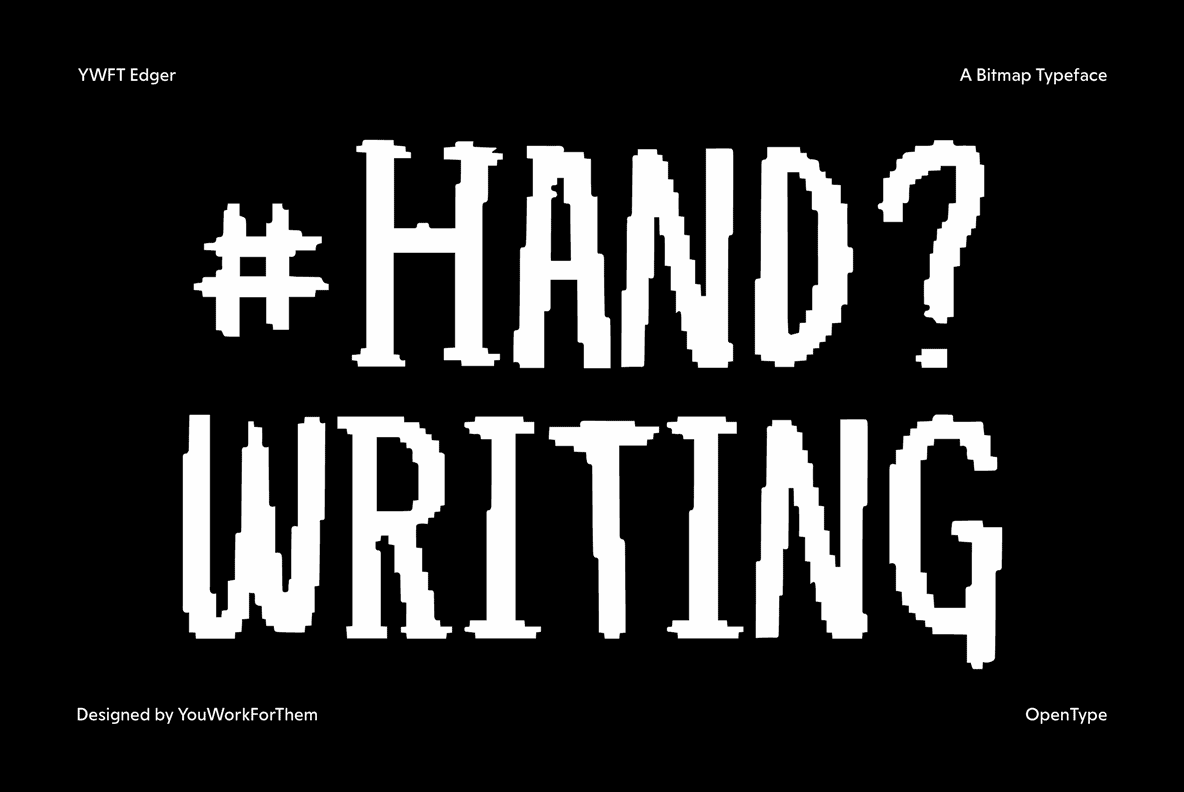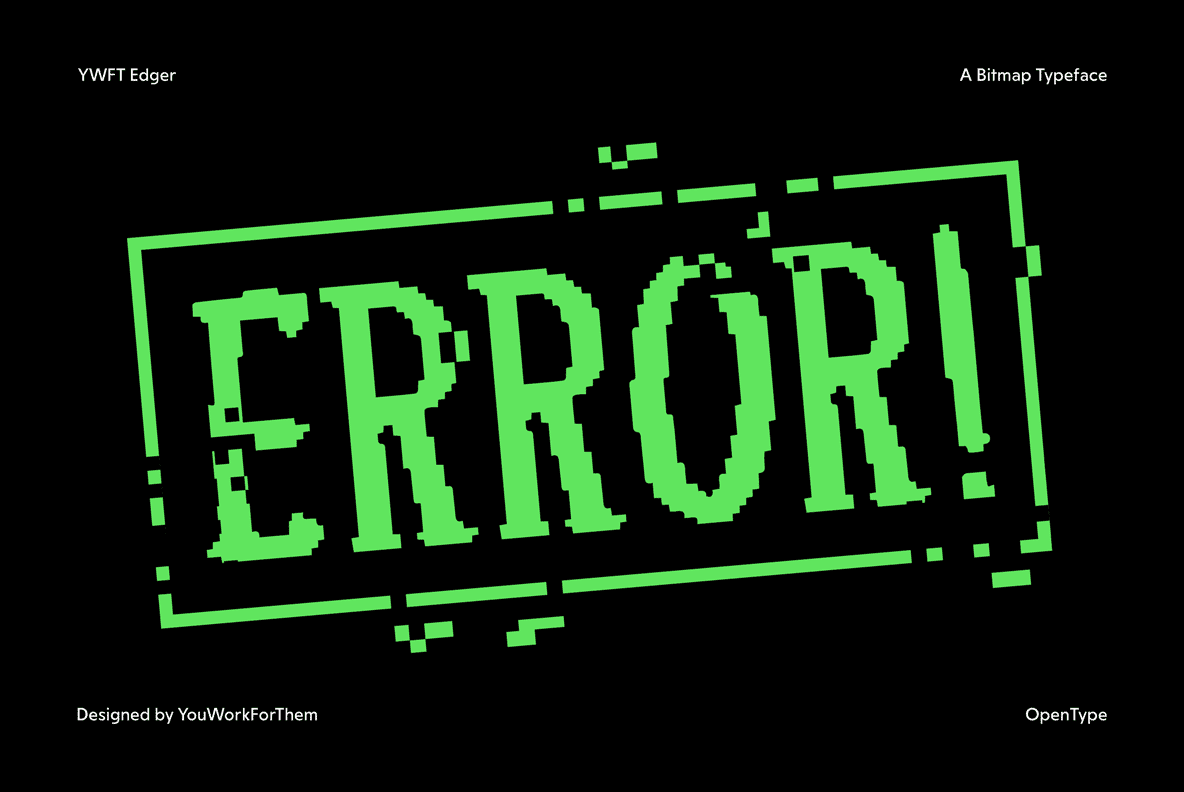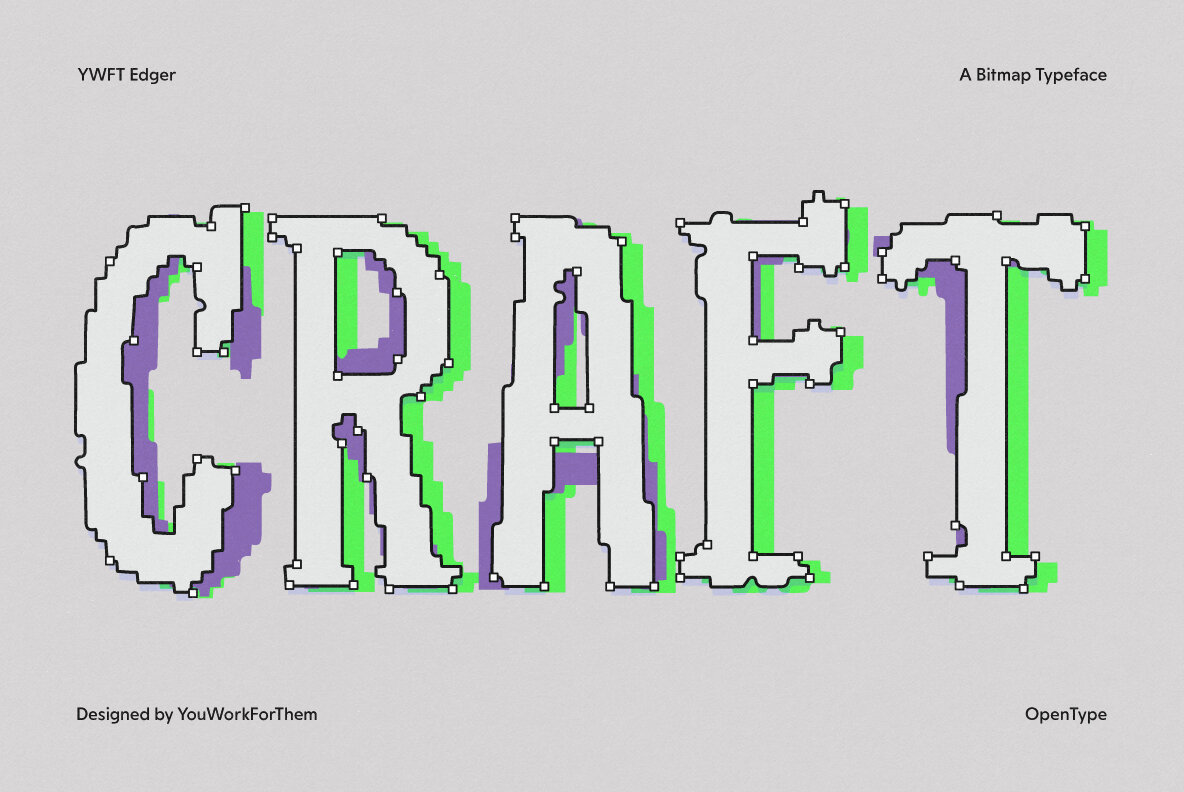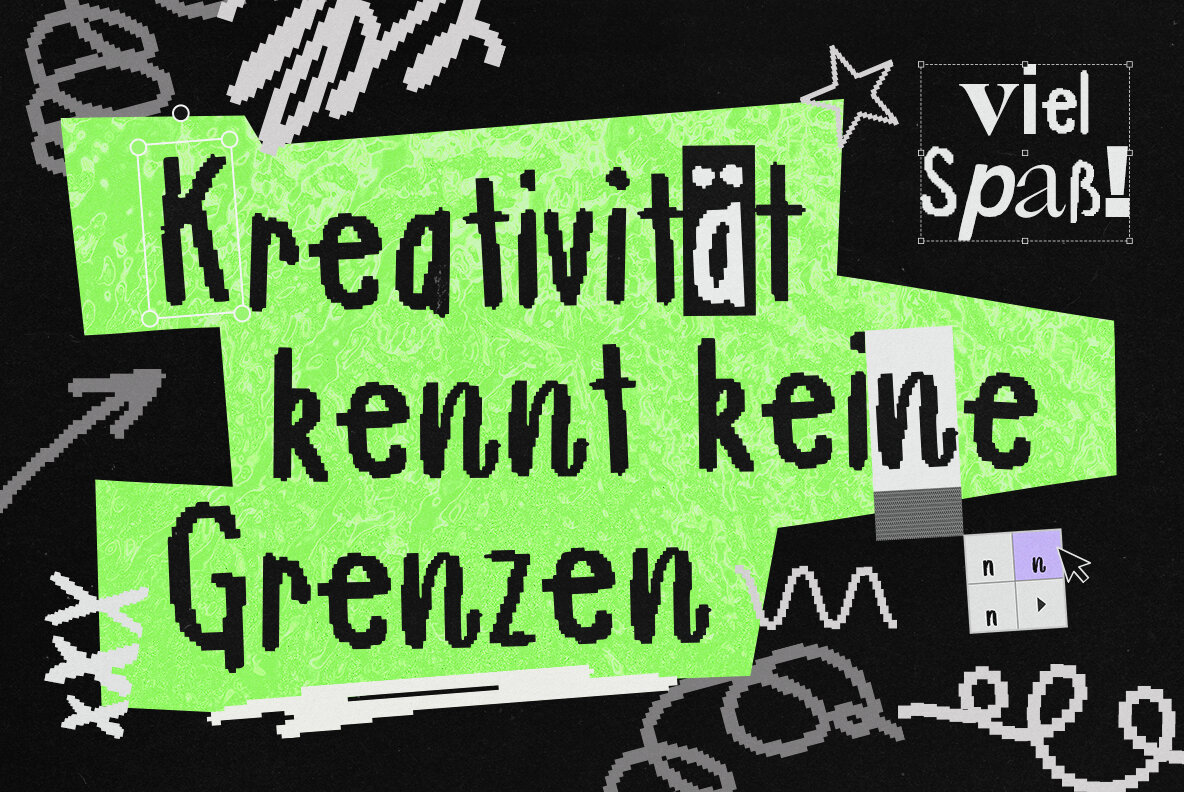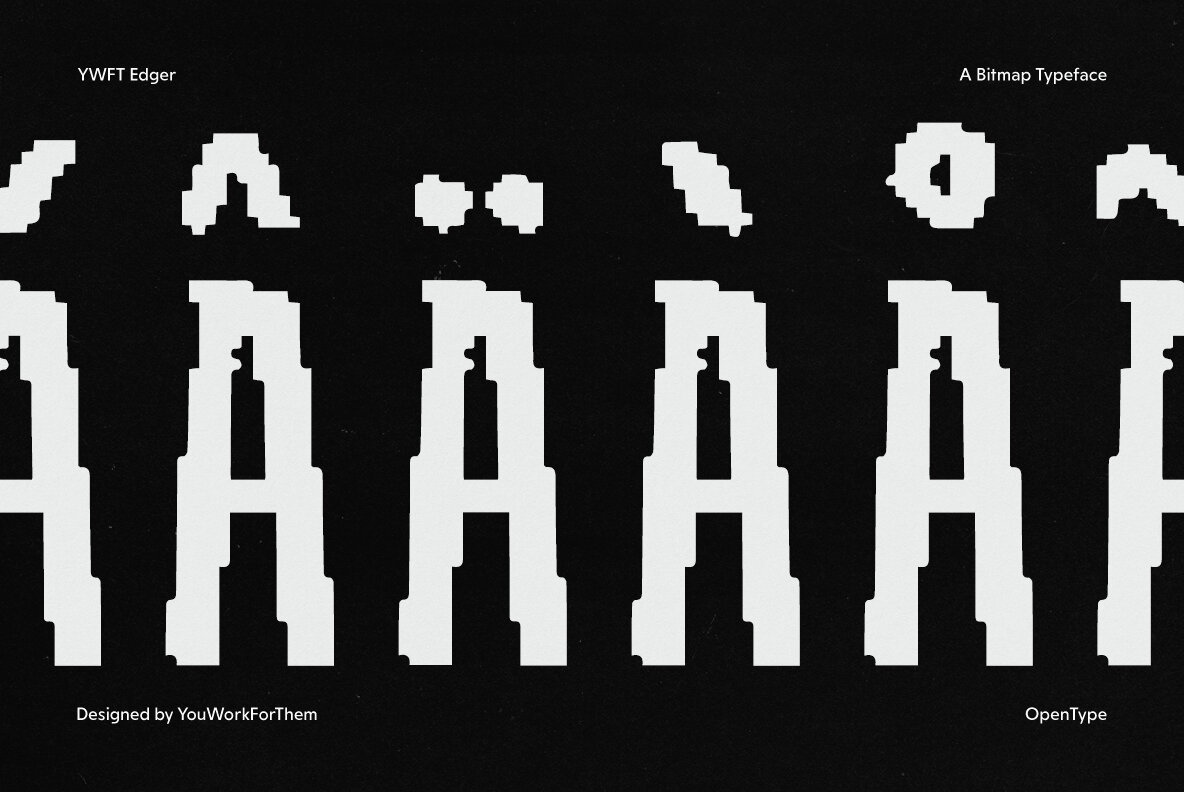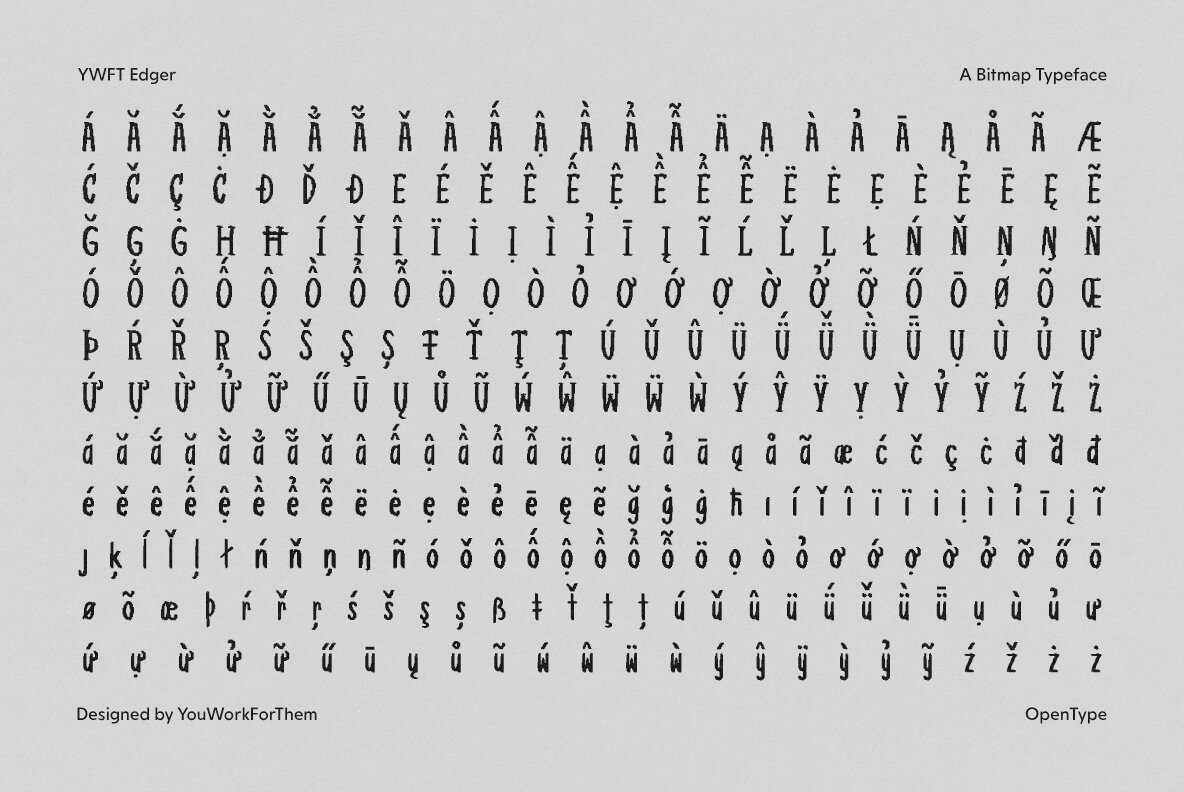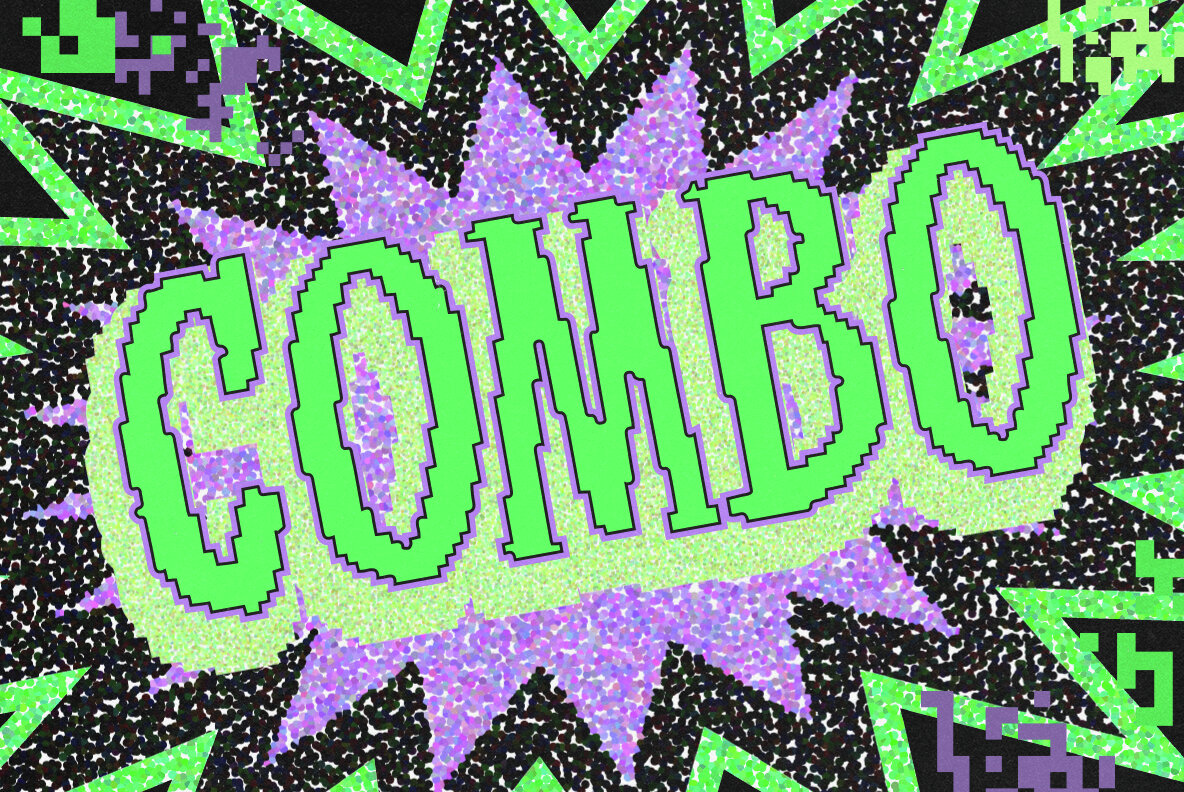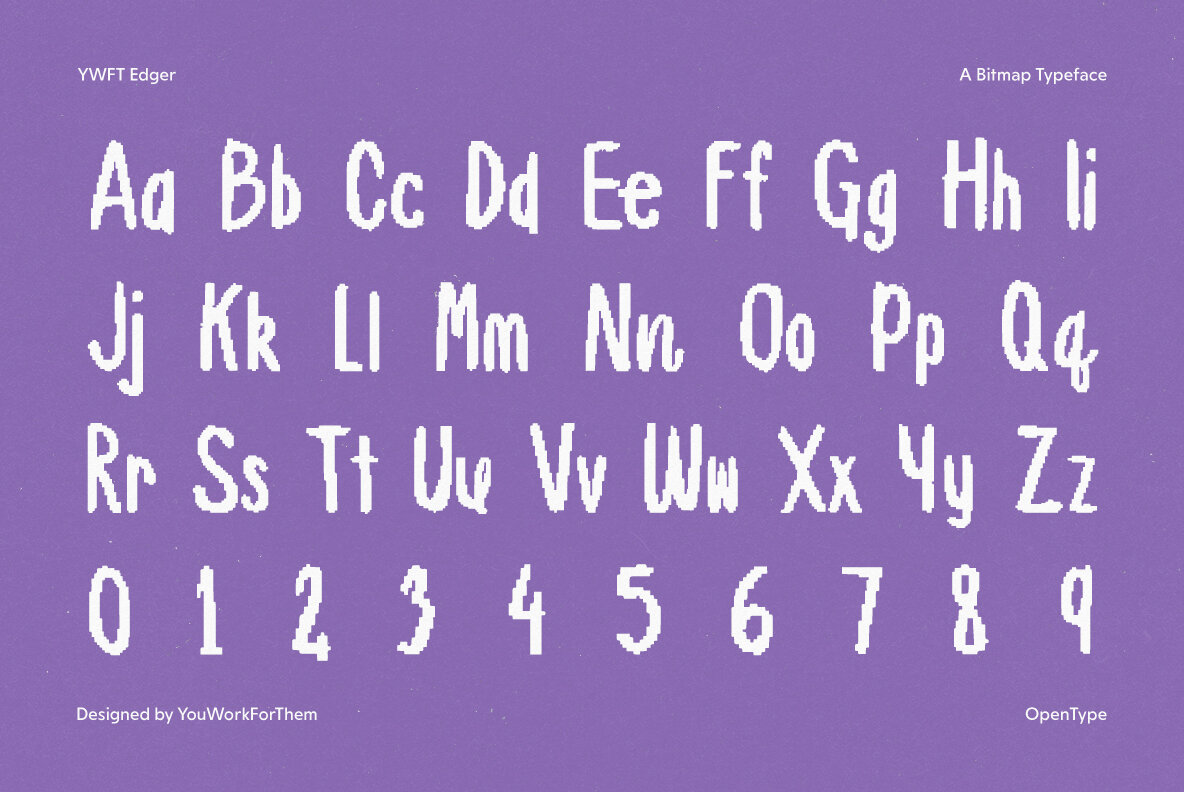
YWFT Edger Font
YWFT Edger
Edger is an evocative font that channels the energy of classic 8-bit and 16-bit gaming eras, with its bold lines and rugged outlines bringing a punk-inspired aesthetic full of youthful exuberance. Perfect for creative endeavors, it captures the spirit of early video games, making it suitable for posters, app designs, book covers, and indie media branding. The font's unique ability to marry nostalgia with a modern flair makes it an invaluable tool for designers. Edger provides a wealth of design possibilities, boasting contextual alternates, discretionary ligatures, and stylistic alternates that ensure exceptional flexibility. It supports an extensive range of languages, including Basic Latin and Western and Central European scripts, making it a versatile choice for a global audience. This comprehensive multilingual support enables Edger to seamlessly integrate into a myriad of projects, resonating with creatives worldwide.Edger: Nostalgic Retro Gaming Font